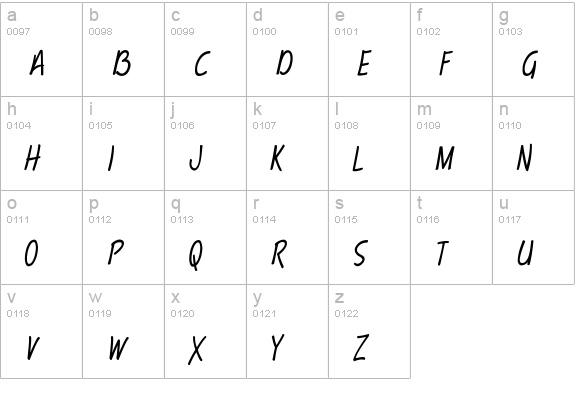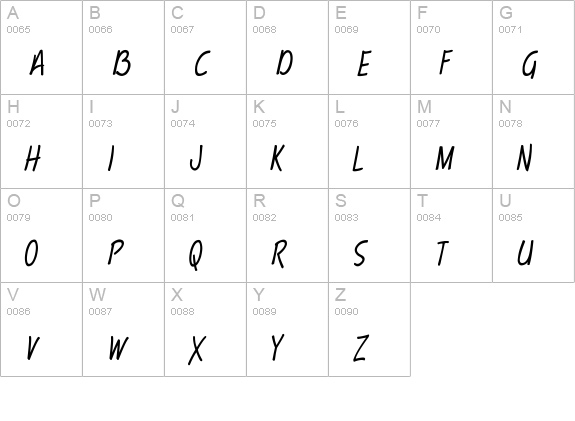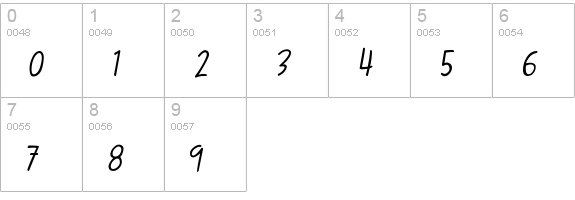
Introducing Terry Script font, a delightful and elegant typeface that exudes sophistication and charm. With its flowing lines and graceful curves, Terry Script is perfect for adding a touch of class to your projects. This versatile font is suitable for a wide range of design applications, from wedding invitations to branding and packaging. The best part? Terry Script is available for free download at FontsMarket.com! Now you can elevate your designs with this beautiful font without breaking the bank. Don't miss out on the opportunity to add Terry Script to your font collection and bring a touch of elegance to your projects. Download it today and let your creativity soar with this stunning typeface.